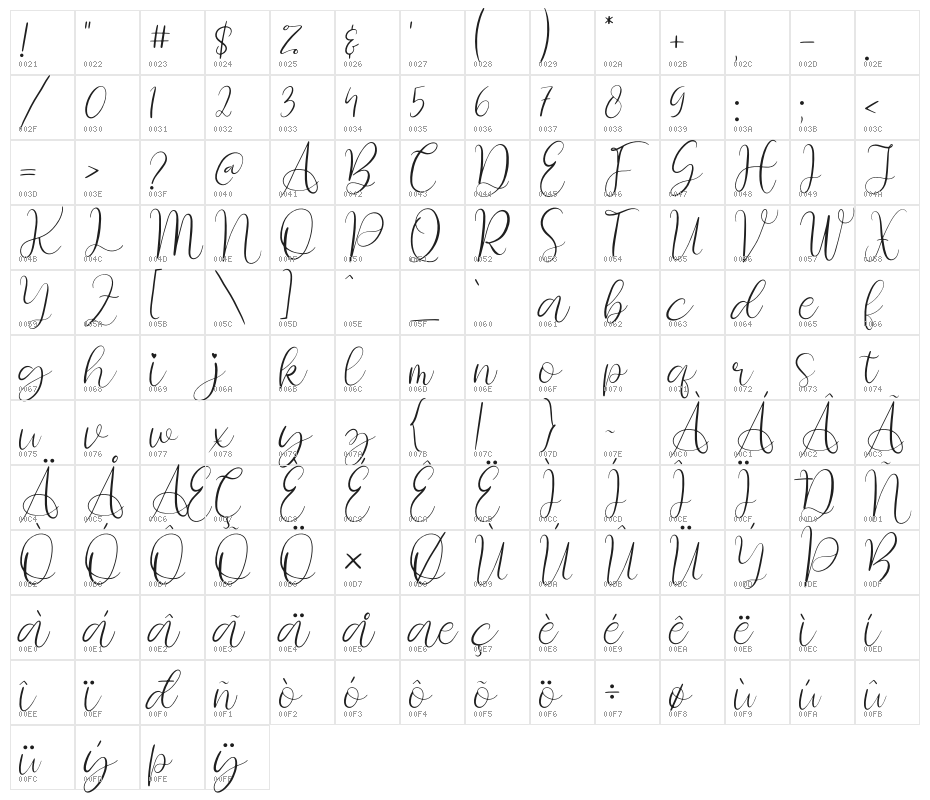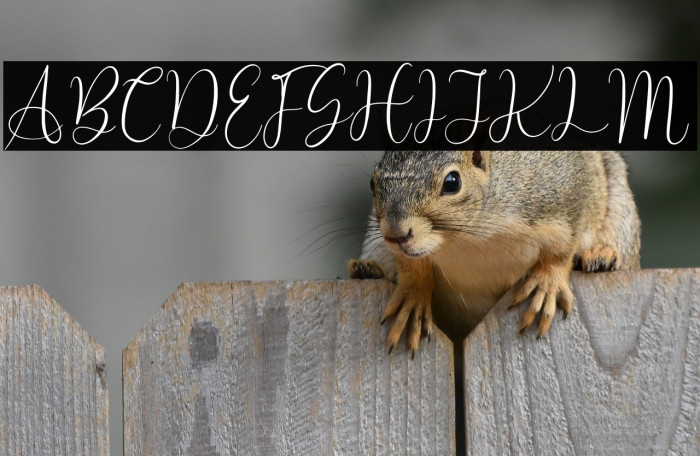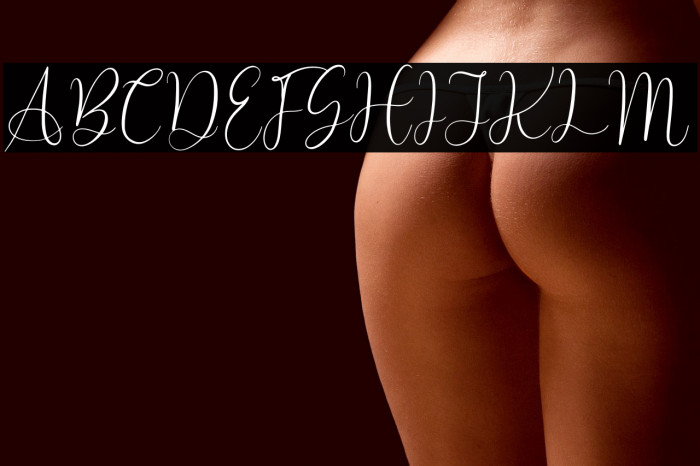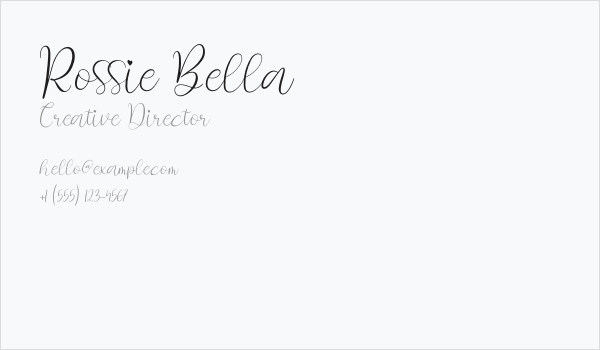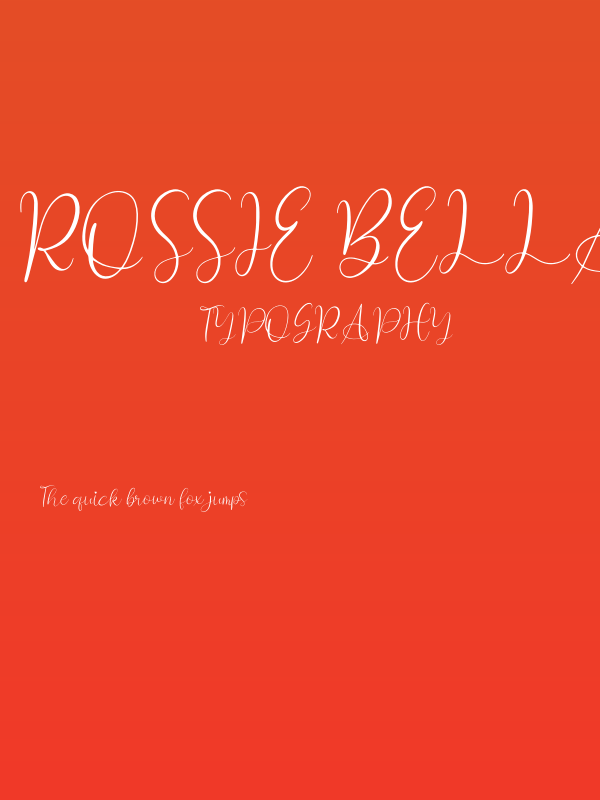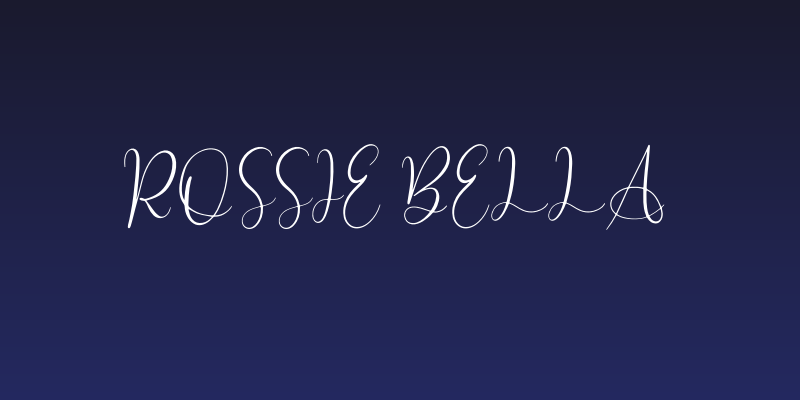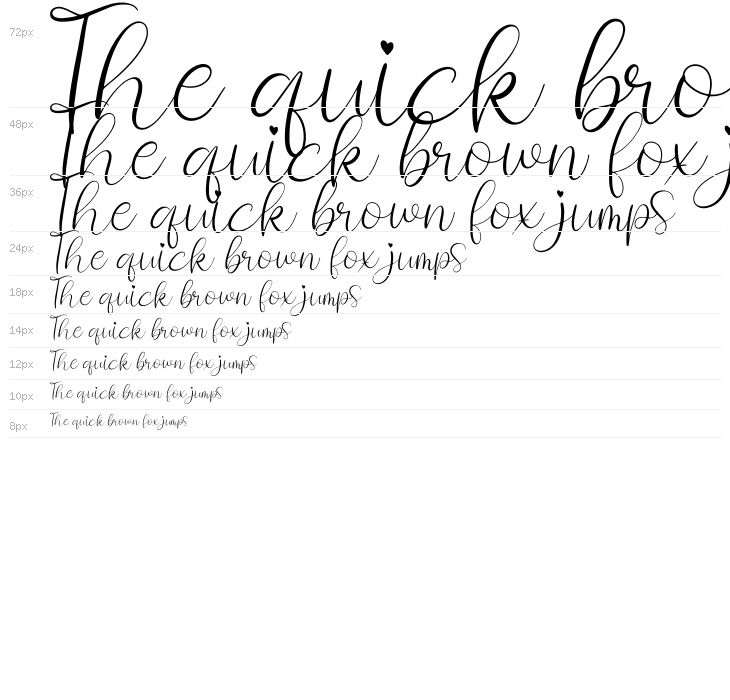
Rossie Bella Font
Rossie Bella Description
This elegant script font features a flowing, cursive style with delicate loops and swashes that give it a sophisticated and graceful appearance. The uppercase letters are characterized by their tall, slender forms and intricate flourishes, while the lowercase letters maintain a consistent, smooth flow. The numerals are stylishly curved, complementing the overall aesthetic. Special characters are designed with the same attention to detail, ensuring a cohesive look across all elements. This font exudes a sense of romance and charm, making it ideal for projects that require a touch of elegance.